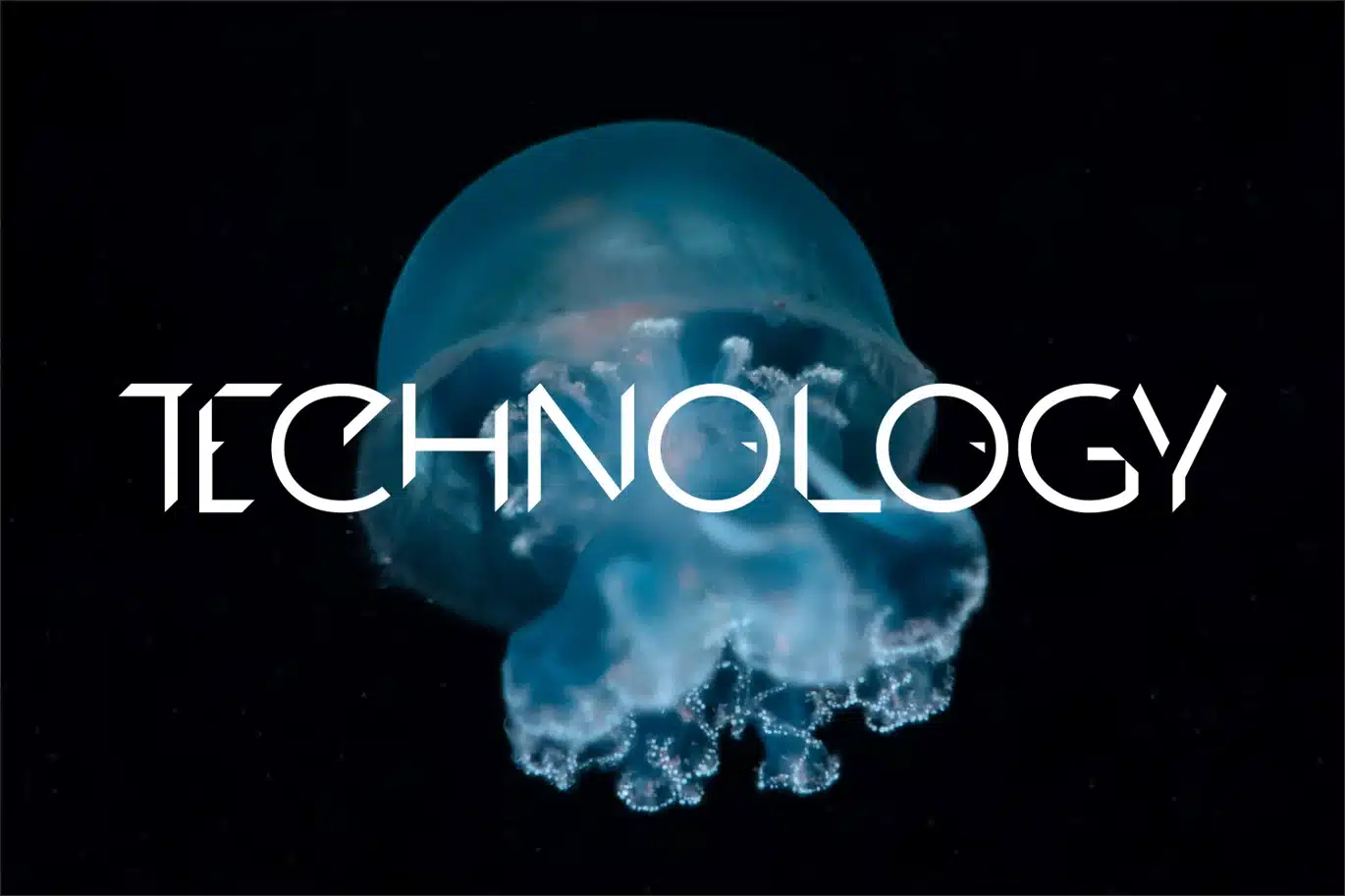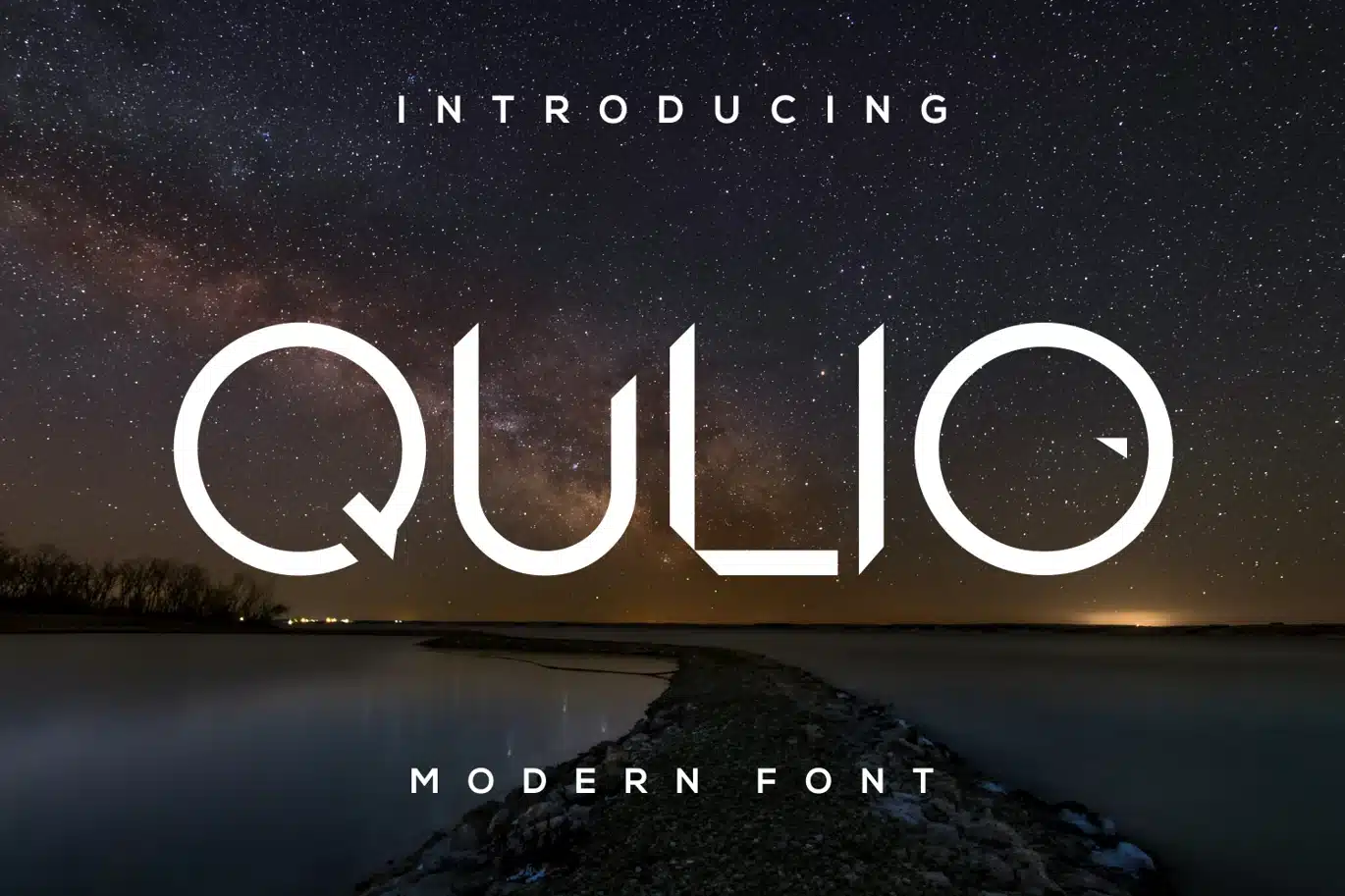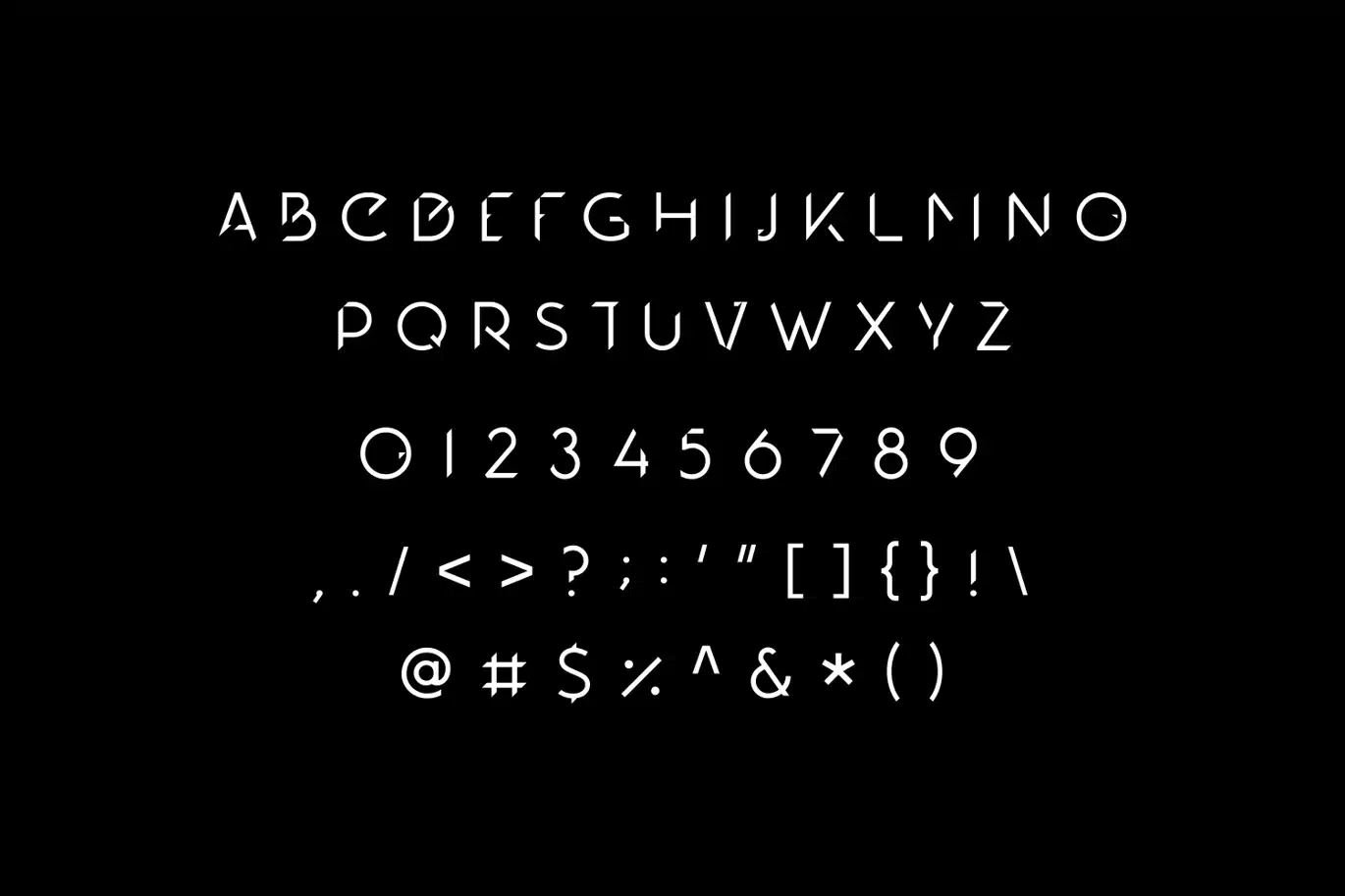
Qulio Font
Qulio Font is modern font
Perfectly suited on print/screen; it can be used freely for logotypes,
e-books and mobile applications and is especially food for headlines, banners, posters,
web-sites, magazines, etc.
*Uppercase & Lowercase
*Number
*Punctuation